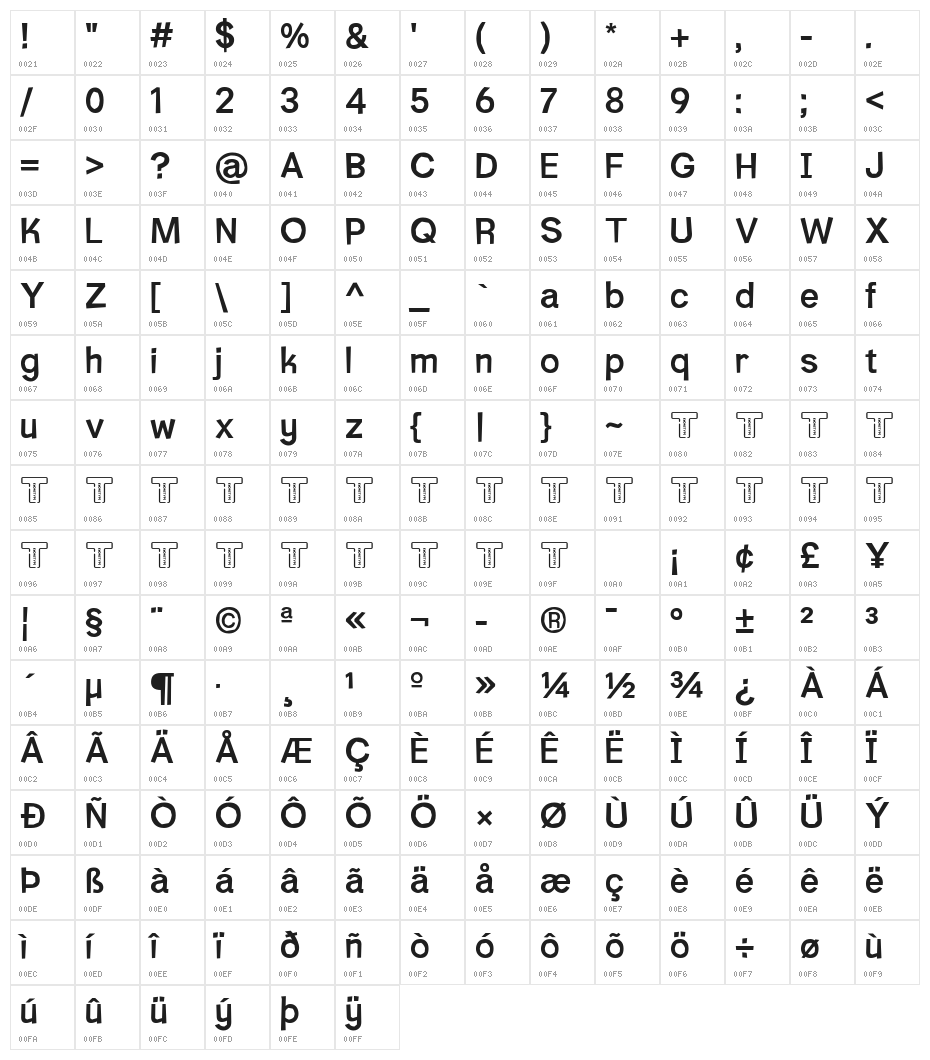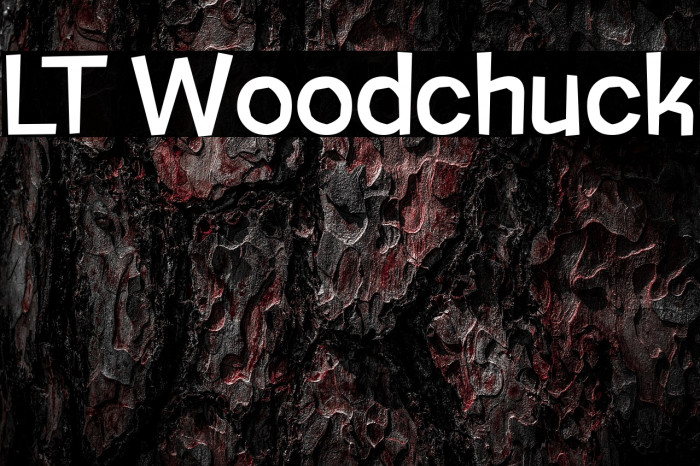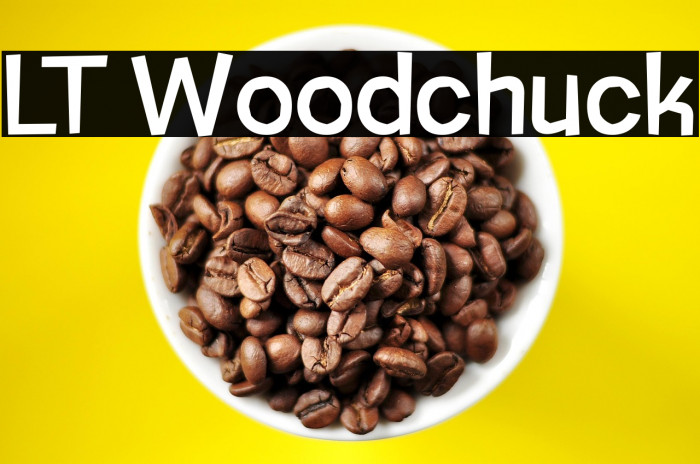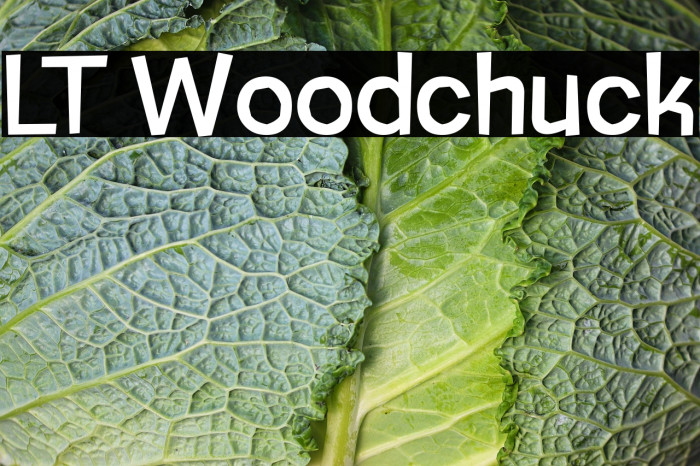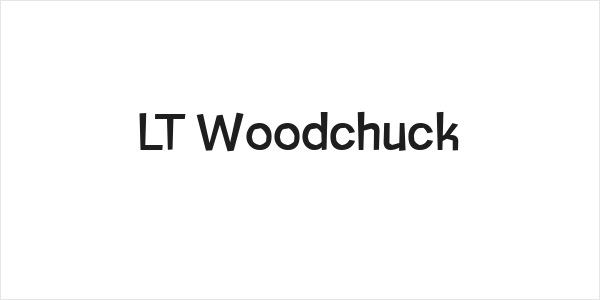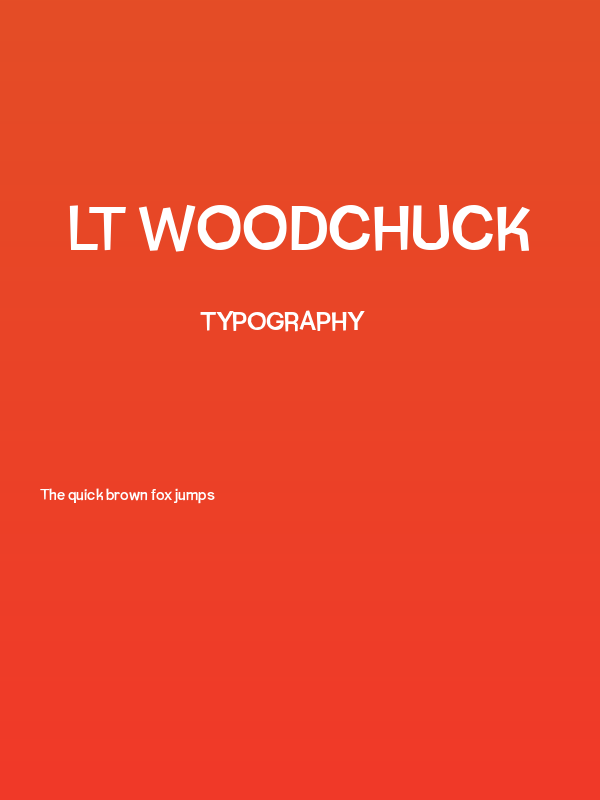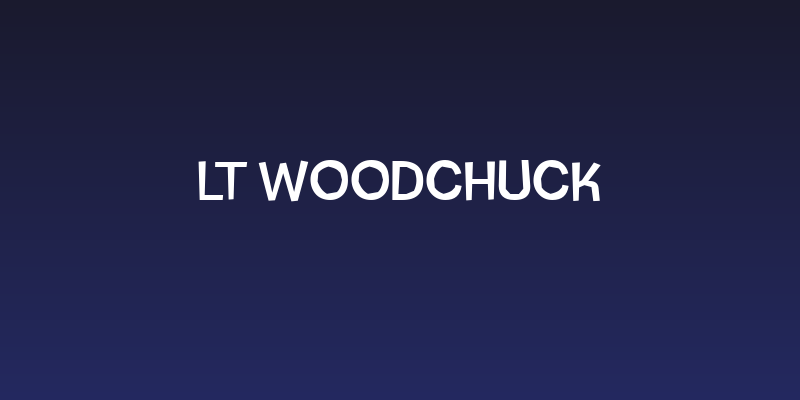
LT Woodchuck Font
LT Woodchuck Description
This font features a bold and modern sans-serif style with clean, geometric lines. The uppercase letters are uniform in height, while the lowercase letters maintain a consistent baseline, offering a balanced appearance. The numerals are clear and easily distinguishable, making them suitable for various applications. Special characters are well-defined, enhancing the font's versatility. The overall design is straightforward yet impactful, suitable for both digital and print media.
| Proposed Projects | Ideal for branding, advertising, headlines, and digital content where a modern and bold statement is needed. |